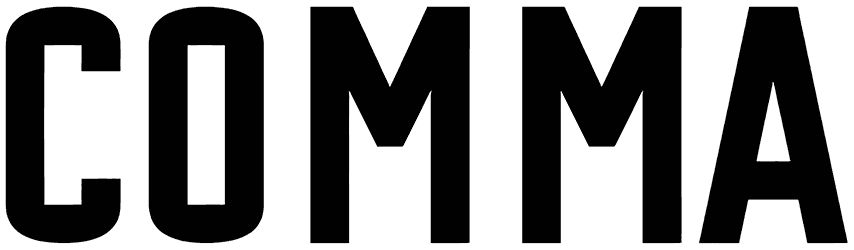
Comma Font
There are countless projects that need a modest and bold letterform, and this sans-serif font has the potential to be chosen by you. The humble and strong visuals of the characters will add a professional mood to your words without any strange form.
As a basic font, Comma font offers two versions, but it doesn’t support lowercase letters and most punctuation marks. Try it for a car rental billboard, and be salient.